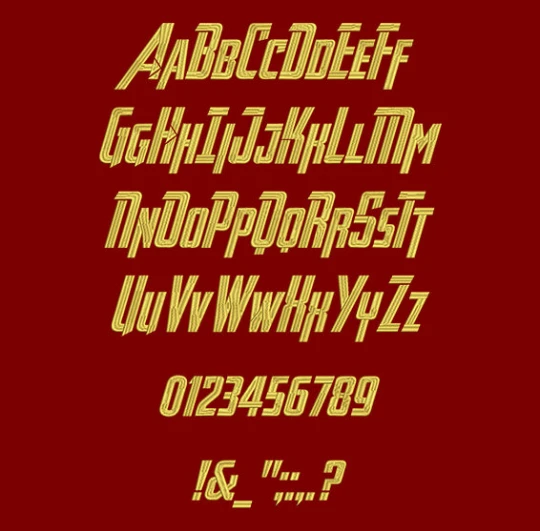
Avenged Machine Embroidery Font - Now Includes BX Format!
Title: Avenged Machine Embroidery Font
This Avenged font is perfect for personalizing clothes, bags, towels and linens!
This rockin' font would look amazing as a Monogram on Totes, School bags and purses!